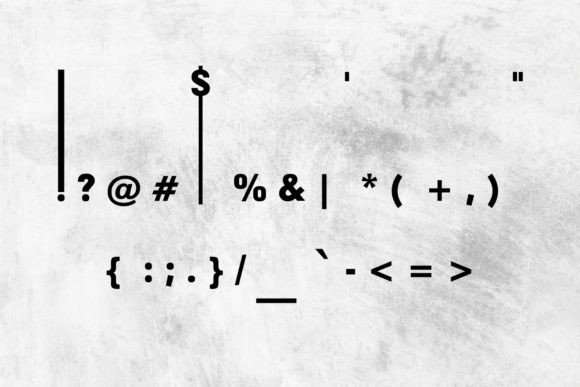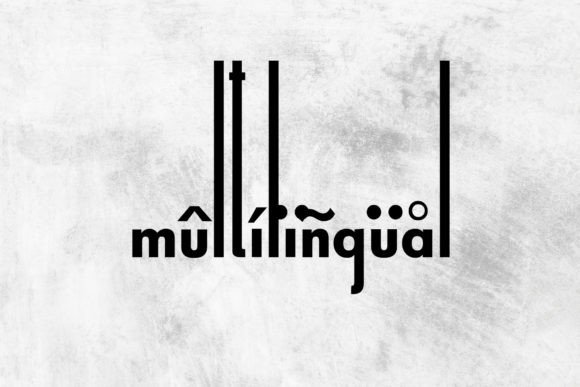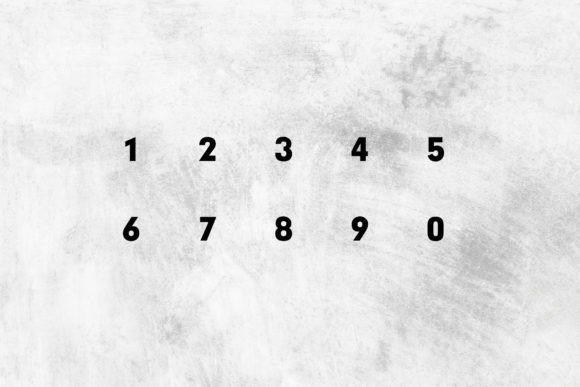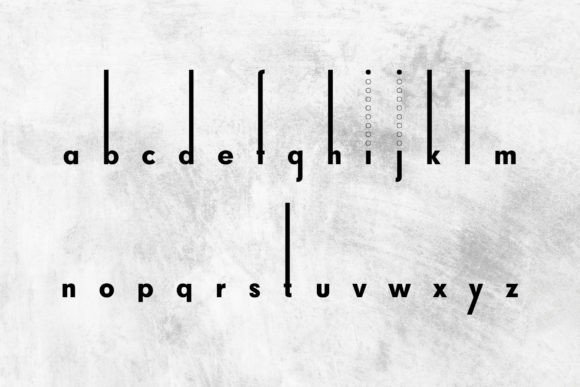
Introduction to Oryx 5 Font
Do you ever find yourself staring at a blank canvas, waiting for inspiration to strike? It’s a familiar feeling for many creatives, and it’s exactly what happened to me when I stumbled upon the Oryx 5 Font. As a designer, I’m always on the lookout for high-quality design resources that can elevate my projects and make them truly stand out.
The moment I laid eyes on the Oryx 5 Font, I knew I had to have it. Its unique, modern design is perfect for adding a touch of sophistication to any creative project. With its transparent background, this font is incredibly versatile and can be used in a variety of settings, from digital design to print materials.
Key Features of Oryx 5 Font
- High-quality design resource suitable for various creative projects, including graphic design, digital art, and publishing.
- Features a transparent background, allowing for seamless integration into various design elements and backgrounds.
- Has a high resolution of 300 DPI, making it suitable for use in high-quality prints and digital displays.
- Unique characteristics include a modern and elegant design style, making it perfect for creating visually appealing and sophisticated designs.
Honest Review: Oryx 5 Font
I recently had the chance to work with the Oryx 5 Font, and I must say it’s been a solid addition to my design resource arsenal. The font has a clean, modern aesthetic that works well for a wide range of creative projects, from corporate branding to digital signage.
One of the standout features of the Oryx 5 Font is its high quality, with crisp lines and smooth curves that make it perfect for large-scale designs. Additionally, the transparent background option is a huge plus, allowing me to easily layer the font over complex backgrounds without any issues.
Here are some of the key things that work well with the Oryx 5 Font:
- High-quality design with crisp lines and smooth curves
- Transparent background option for easy layering
- Works well for a wide range of creative projects
That being said, there are a few limitations to be aware of:
- May not be suitable for projects that require a highly customized font
Overall, I’m impressed with the Oryx 5 Font and would definitely recommend it to designers looking for a high-quality, versatile font. With a few limitations in mind, it’s a great addition to any design resource library.
Tips for Getting the Most Out of Oryx 5 Font
Use the Oryx 5 Font in combination with other design elements to create visually appealing designs. Experiment with different font sizes, colors, and styles to achieve the desired effect. Also, consider using the font with transparent backgrounds to add a touch of elegance to your designs.
The Oryx 5 Font is suitable for a wide range of creative projects, including:
- Presentation slides
- Posters
- Logos
- Documents